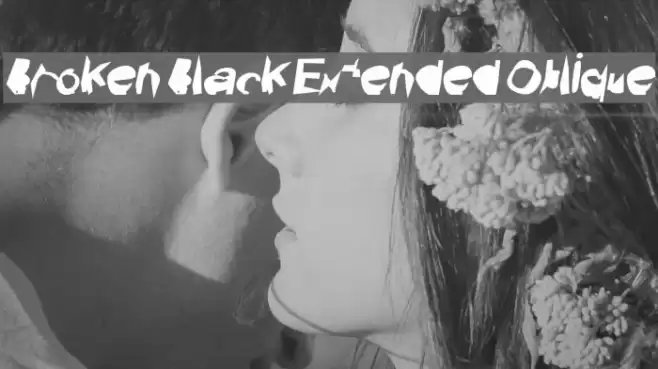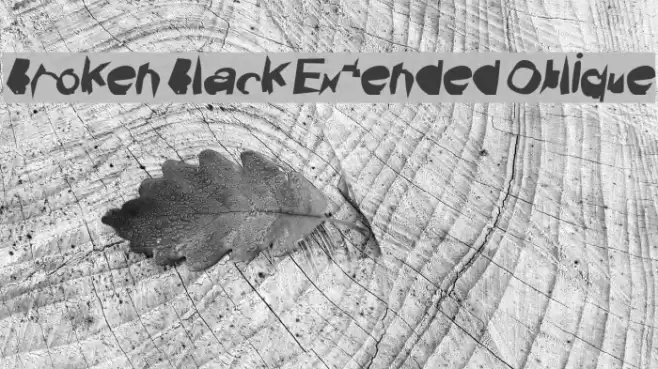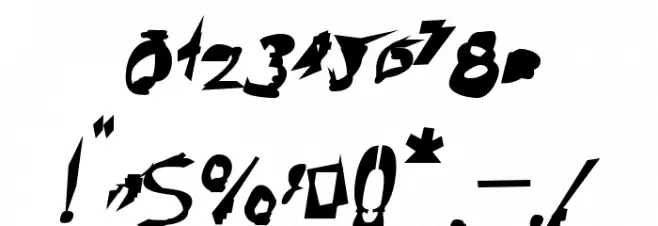
Broken Black Extended Oblique Font
Broken Black Extended Oblique Description
This font features a bold and dynamic style with an oblique orientation, giving it a sense of movement and energy. The characters are heavily stylized with sharp angles and irregular shapes, creating a chaotic yet intriguing appearance. The uppercase and lowercase letters maintain a consistent design theme, while the numbers and special characters follow suit with their unique and edgy forms. The overall look is striking and unconventional, making it suitable for projects that require a strong visual impact.
A bold, oblique font with sharp angles and a dynamic, chaotic style from Uncategorized fonts.
- Font: Broken Black Extended Oblique
- Proposed Projects: Ideal for album covers, poster designs, and branding projects that aim to stand out with a bold statement.
- Width: Expanded
- Overall Style: Modern, Decorative